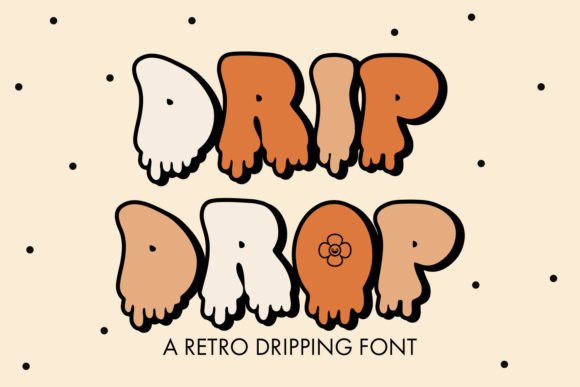
Looking for the perfect font to add a touch of fun and nostalgia to your designs? Look no further! Introducing 'Drip Drop' - the ultimate retro dripping font that exudes vintage vibes and captivates with its unique appeal.
Created by freelingdesignhouse, 'Drip Drop' is a display font that will elevate your designs to a whole new level. With its eye-catching retro style, this font is perfect for posters, logos, and any project that needs a playful yet captivating touch.
But that's not all! 'Drip Drop' is not limited to just posters and logos. It is a versatile font that can be used for anything your creative mind desires. Imagine the possibilities - T-shirt designs that stand out in a crowd, phone cases that showcase your unique style, greeting cards that leave a lasting impression, and invitations that set the mood for a memorable event. The options are endless!
With 'Drip Drop', your designs will effortlessly grab attention and leave a lasting impact. Each letter is carefully crafted to resemble dripping paint, adding a sense of artistic flair to your creations. The nostalgic vibes of this font will transport your audience back in time, evoking feelings of joy and excitement.
Not only does 'Drip Drop' offer a visually appealing aesthetic, but it also provides the perfect blend of functionality and creativity. Its legibility ensures that your message is conveyed clearly, while its unique design adds that extra touch of personality.
So let your creativity flow and have fun experimenting with 'Drip Drop'. Whether you're a professional designer or a DIY enthusiast, this font is perfect for anyone who wants to add a touch of whimsy and nostalgia to their projects. Let your imagination run wild and watch as your designs come to life with 'Drip Drop'.